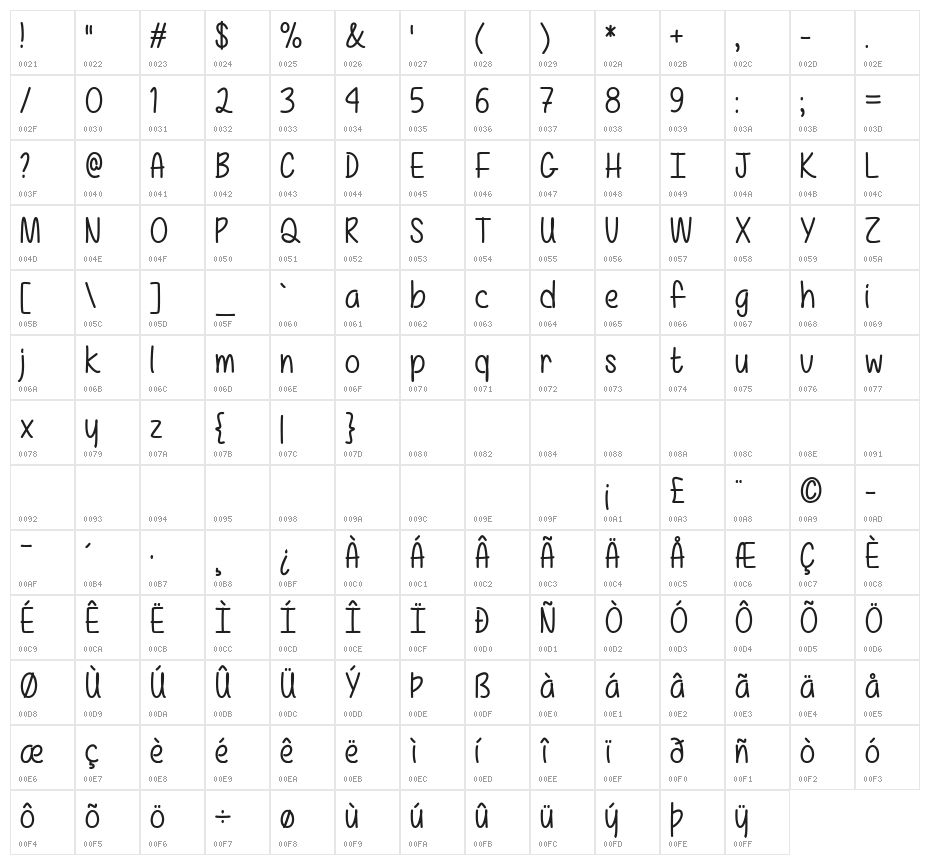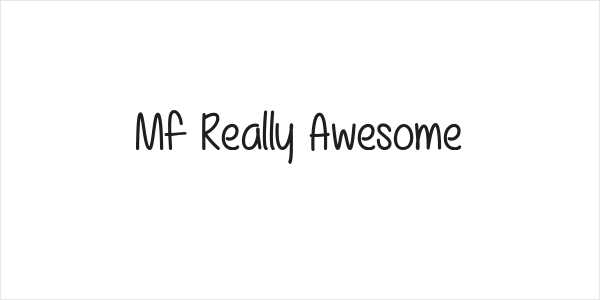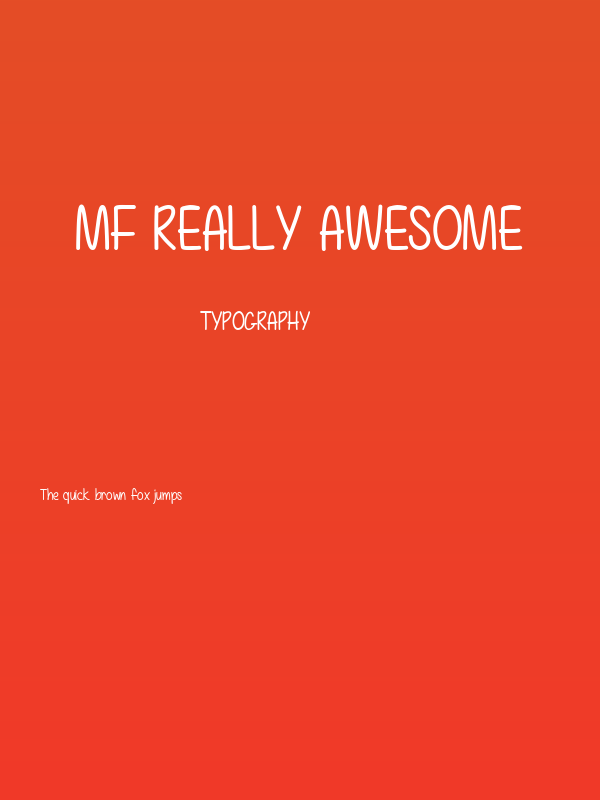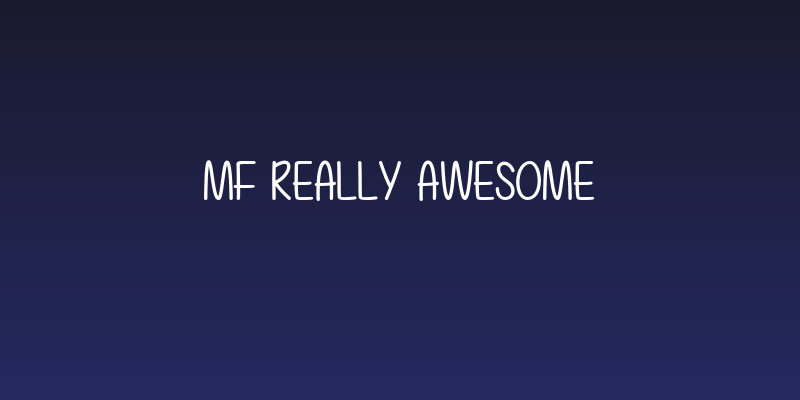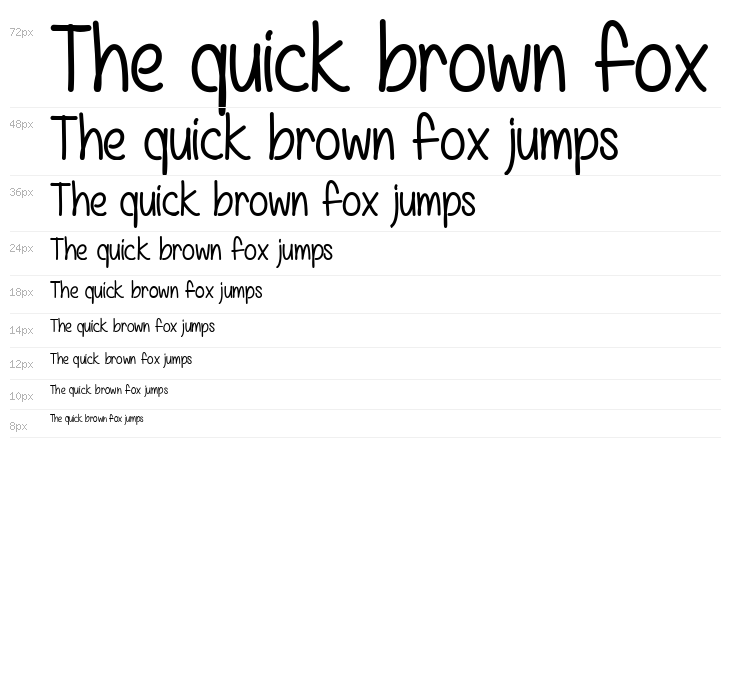
Mf Really Awesome Font
Mf Really Awesome Description
This playful and whimsical font features rounded, hand-drawn characters that convey a sense of friendliness and approachability. The letters are slightly irregular, adding a touch of charm and personality. The uppercase and lowercase letters maintain a consistent style, with smooth curves and a casual flow. Numbers and special characters are designed to match the overall aesthetic, making the font versatile for various uses. The font's informal style makes it ideal for creative projects that require a personal touch.
| Overall Style | Casual and playful |
| Use Case | Headlines, Logos, Informal text |
| Proposed Projects | Ideal for children's books, greeting cards, playful branding, and casual invitations. |